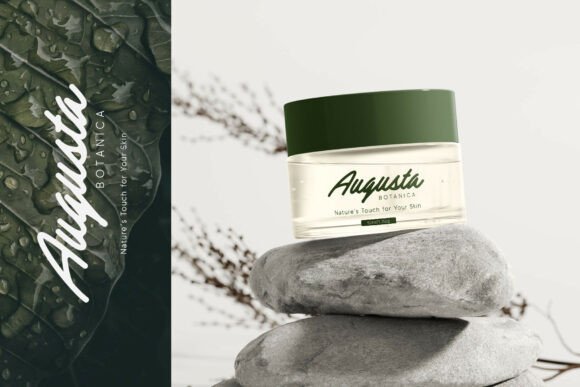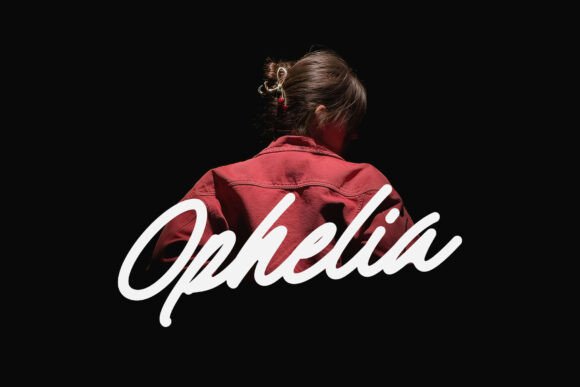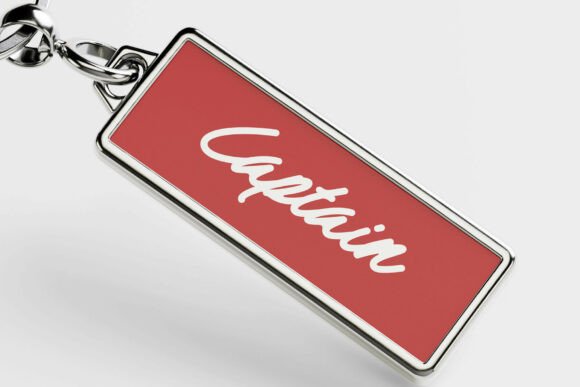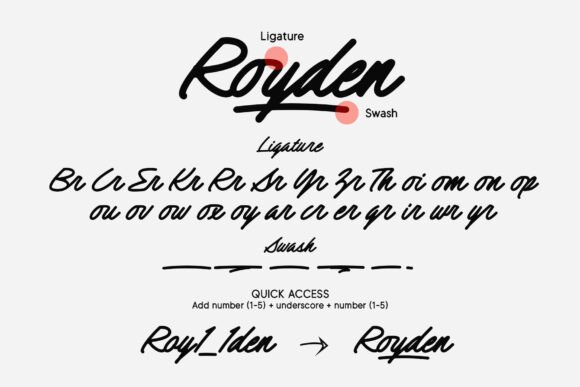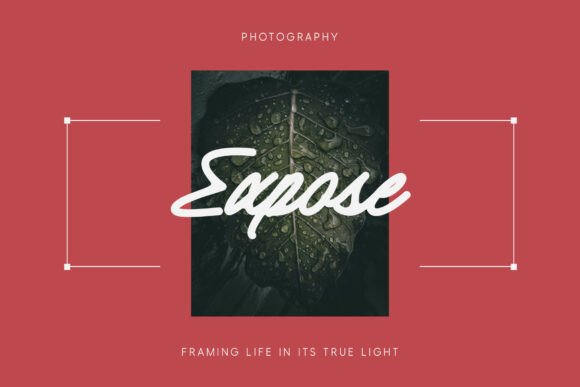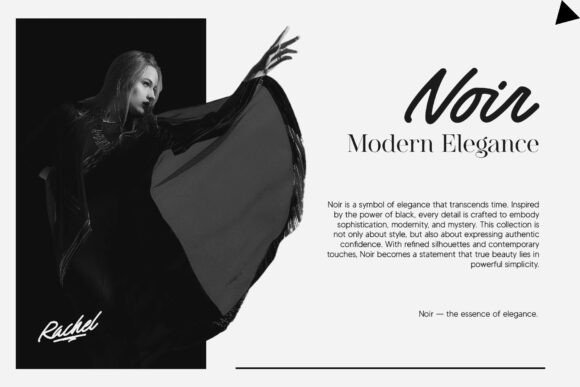
Copeline Font: Elevate Your Designs with a Bold Monoline Script
In the world of typography, fonts play a crucial role in conveying the tone and personality of a brand. For designers and crafters looking to make a statement, Copeline Font is an excellent choice. This bold monoline script font is designed to deliver a strong yet stylish impression, making it perfect for a wide range of applications.
What is Copeline Font?
Copeline Font is a modern script font that features consistent strokes, making each letter highly legible without losing aesthetics. The font’s monoline design ensures that every letter has a uniform thickness, giving it a sleek and contemporary look. This unique design element makes Copeline Font stand out from other script fonts, making it an excellent addition to any design project.
Key Features of Copeline Font
Copeline Font comes equipped with several key features that make it an excellent choice for designers and crafters. Some of its notable features include:
- Swash Feature: The swash feature allows designers to add a touch of elegance to their text. This feature is perfect for creating beautiful, flowing script text that adds a level of sophistication to any design.
- Ligature Feature: The ligature feature ensures that certain letter combinations are connected, creating a seamless and natural flow. This feature is especially useful for creating realistic script text that looks like it was written by hand.
- Consistent Strokes: The consistent strokes in Copeline Font make each letter highly legible, even at smaller sizes. This feature ensures that the text is easy to read, making it perfect for a wide range of applications.
Use Cases for Copeline Font
Copeline Font is a versatile font that can be used in a variety of design projects. Some of its use cases include:
- Logos and Branding: Copeline Font is perfect for creating logos and branding materials that require a bold and stylish script font. Its unique design elements make it an excellent choice for businesses looking to stand out from the competition.
- Packaging: The font’s bold and legible design makes it an excellent choice for packaging design. It can be used to create eye-catching labels and packaging materials that grab the attention of potential customers.
- Signage: Copeline Font is also perfect for signage design. Its bold design ensures that the text is easy to read from a distance, making it an excellent choice for outdoor signage.
- Poster Headlines: The font’s stylish and bold design makes it an excellent choice for poster headlines. It can be used to create eye-catching headlines that grab the attention of potential customers.
- Modern Digital Identities: Copeline Font is also perfect for creating modern digital identities. Its sleek and contemporary design makes it an excellent choice for businesses looking to create a strong online presence.
Tips for Using Copeline Font
Here are some tips for using Copeline Font in your design projects:
- Experiment with Font Sizes: Copeline Font is highly legible, even at smaller sizes. Experiment with different font sizes to find the perfect size for your design project.
- Pair with Other Fonts: Copeline Font can be paired with other fonts to create a unique and visually appealing design. Experiment with different font combinations to find the perfect pairing.
- Use Swash and Ligature Features: The swash and ligature features in Copeline Font can be used to add a touch of elegance to your text. Experiment with these features to create beautiful and flowing script text.
| Author | lemonthe |
Copeline Font is a bold monoline script font that delivers a strong yet stylish impression. Its unique design elements, swash and ligature features, and high legibility make it an excellent choice for a wide range of design projects. Whether you’re a designer or crafter looking to create a logo, branding materials, packaging, signage, poster headlines, or modern digital identities, Copeline Font is an excellent choice. With its versatility and range of use cases, Copeline Font is sure to become a staple in your design toolkit.